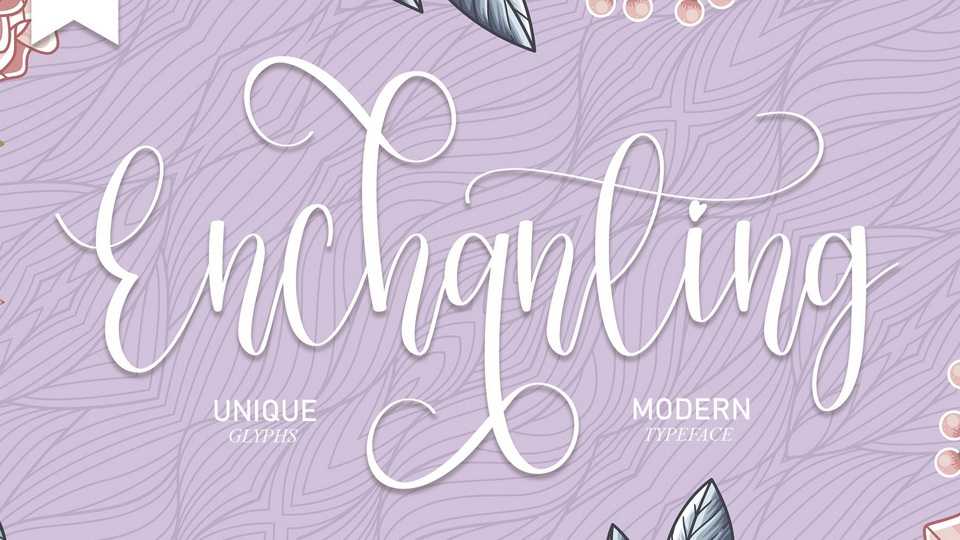
Download Enchanting font, a lovely handwritten typeface made of beautiful, creative strokes. Enchanting font is perfect choice for creating eye-catching logos, branding and quotes.